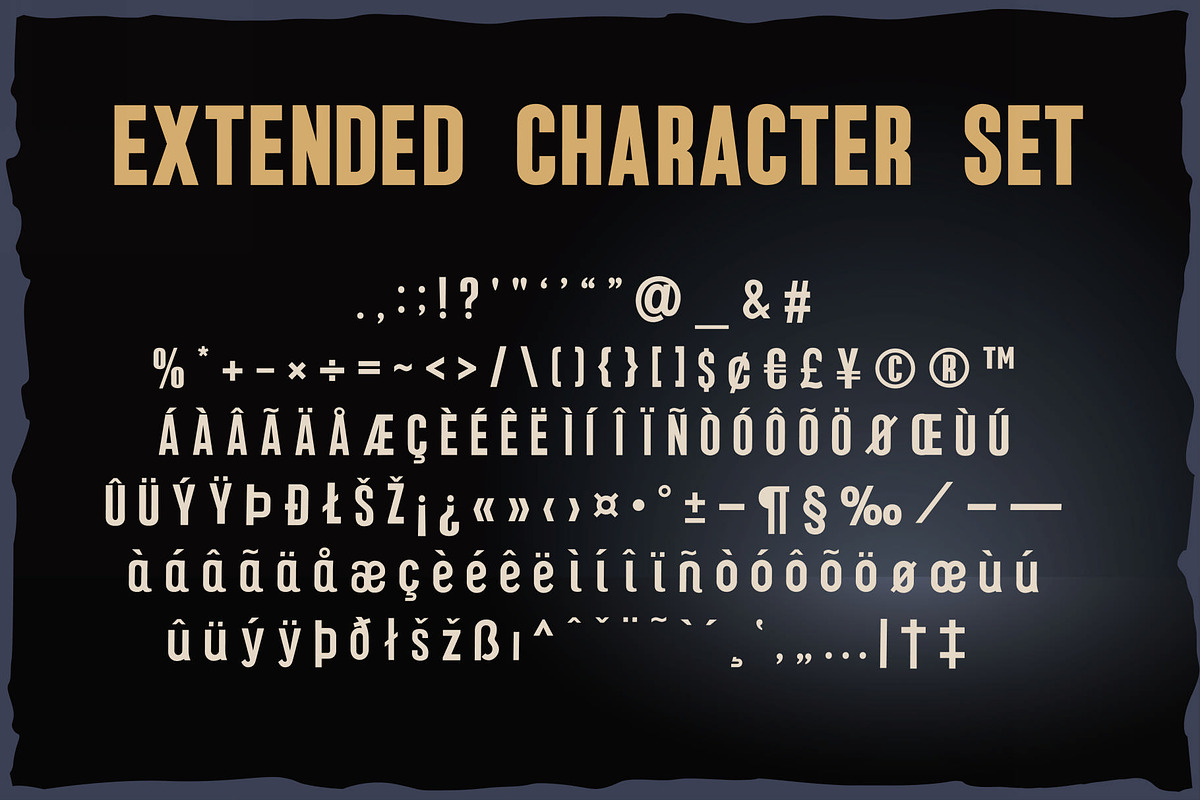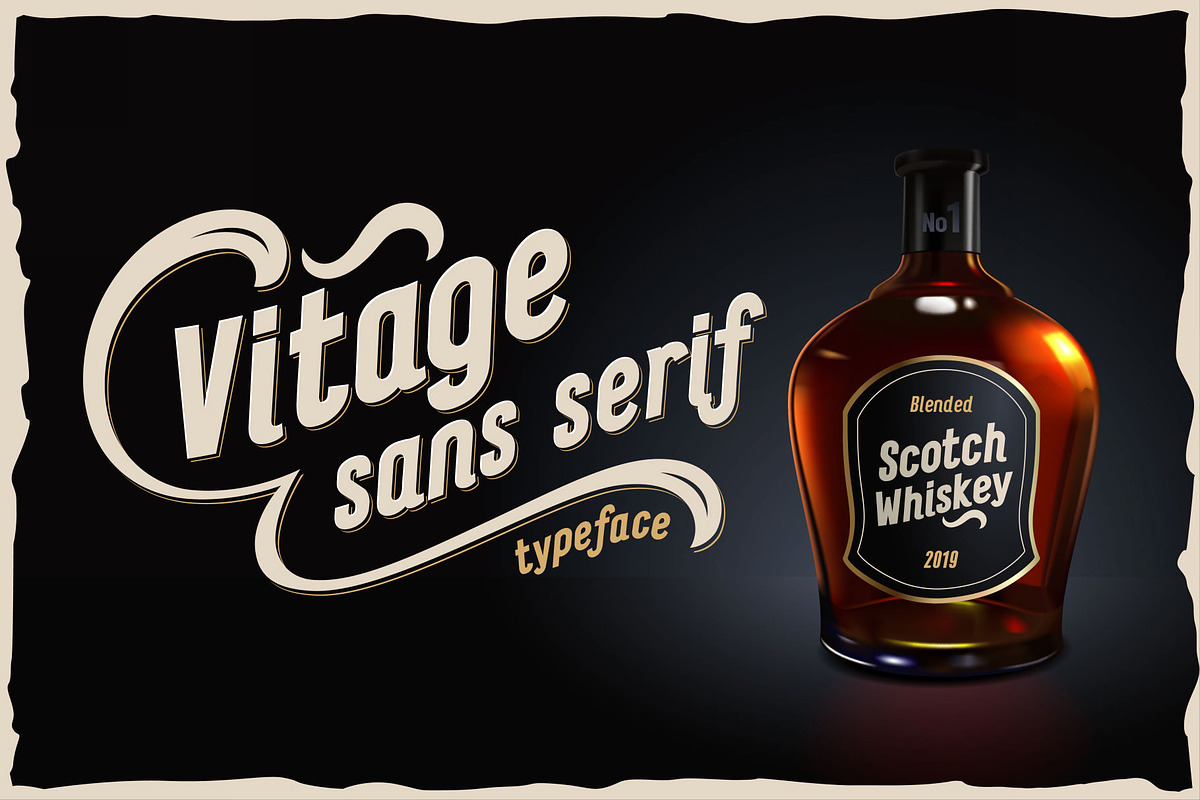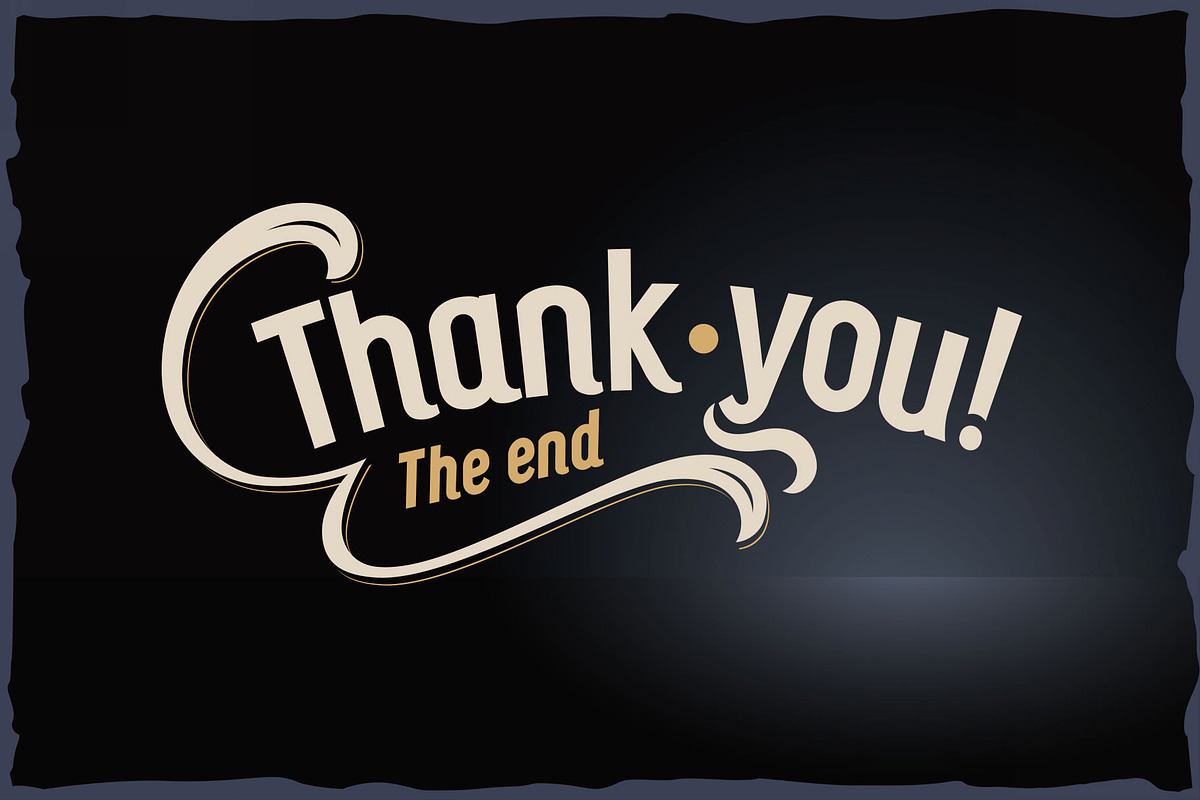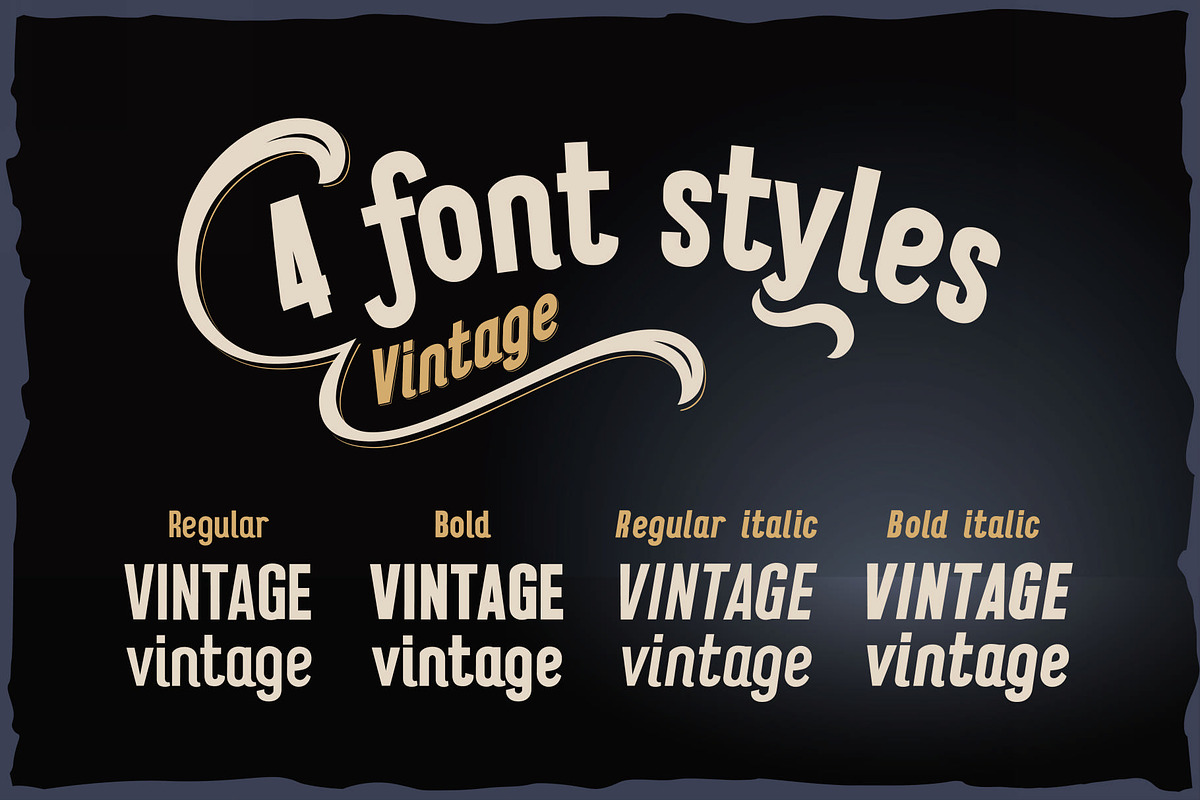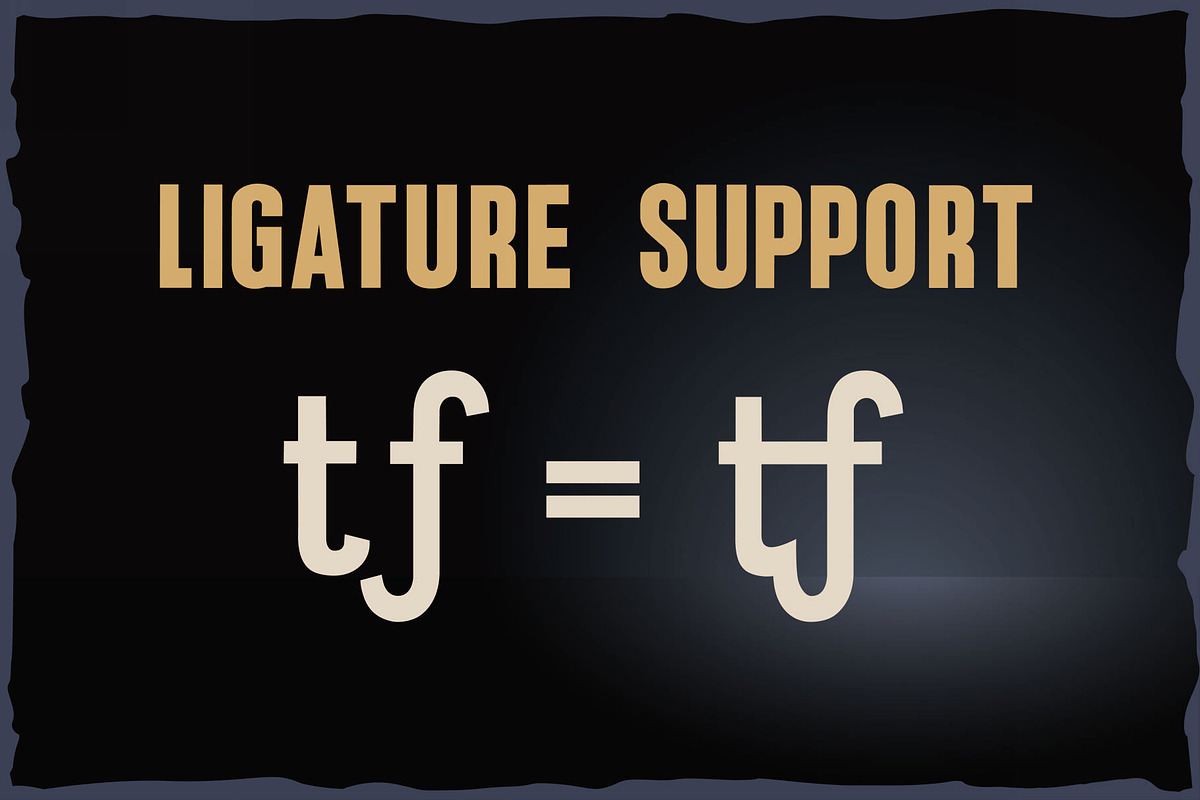
Vitage - elegant sans serif OTF font
Why Vitage - elegant sans serif OTF font is worth a look
Vitage - elegant sans serif OTF font by Fractal fonts & graphics fits naturally into Branding, posters, packaging, typography.